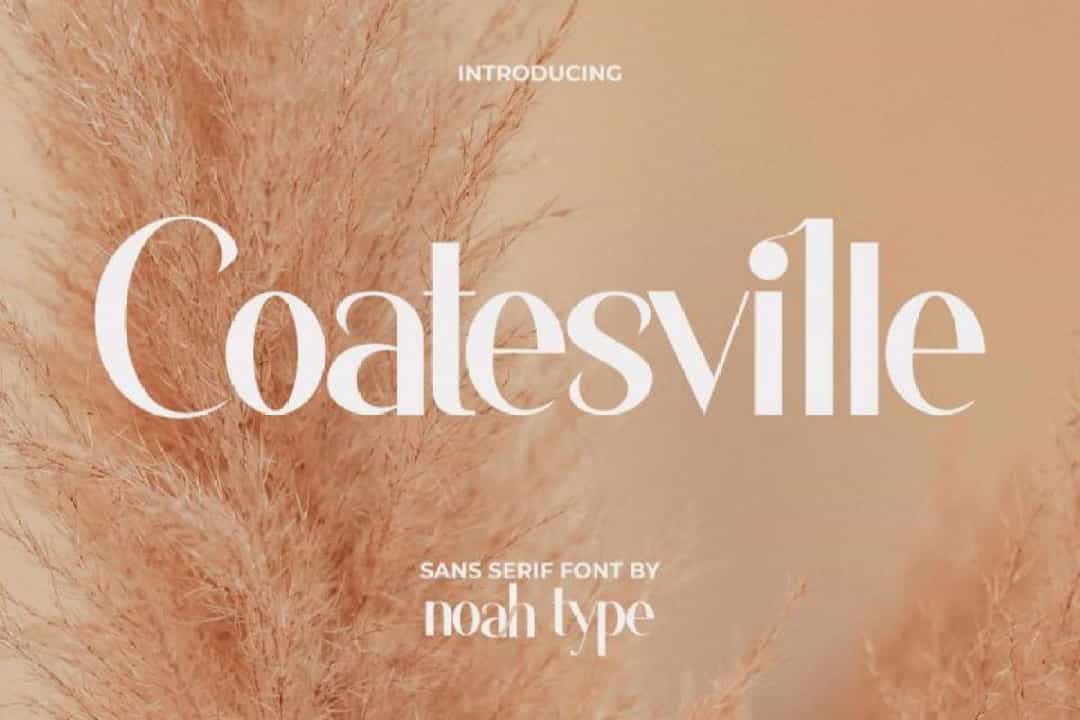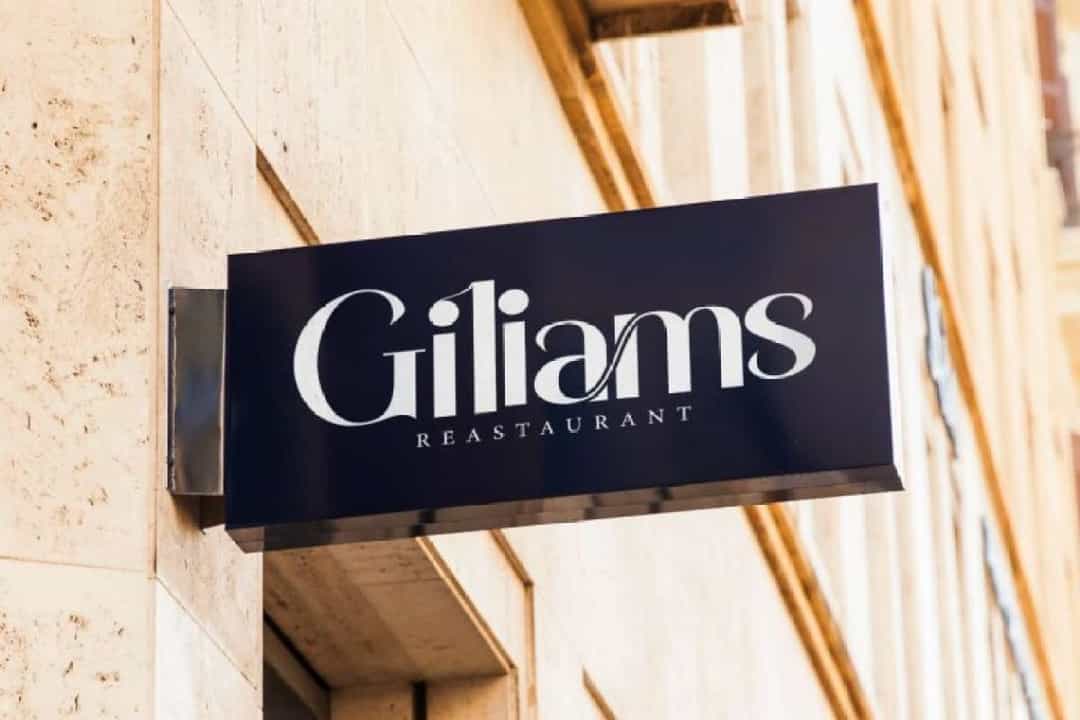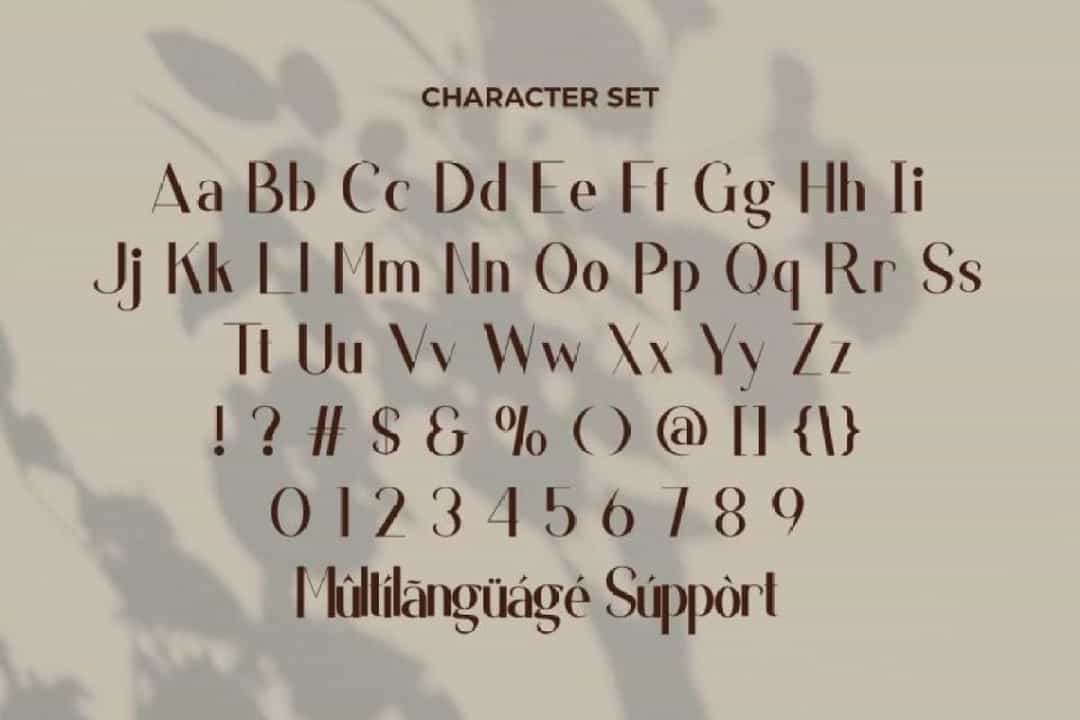
Discover Coatesville Font, part of the Sans Serif collection—a versatile and unique font perfect for adding a personal touch to your projects. Download it for free and enjoy crafting designs with style, from invitations to social media posts. This font is available exclusively for personal use, giving you the freedom to create without limits. Unlock your creativity with Coatesville Font today!
Coatesville a modern display sans serif font. This font stands out from typical basic forms by being both clean and simple in design – creating an unusual effect to any style such as weddings, fashion writers, florists and writers alike.